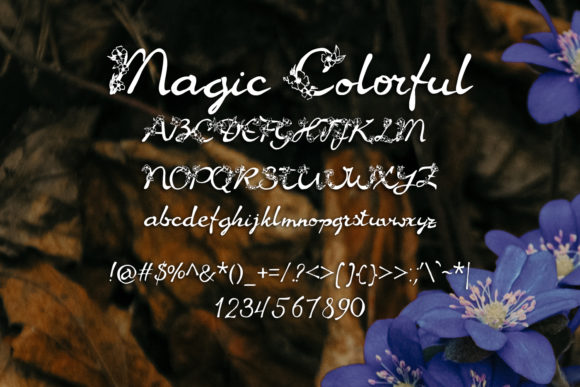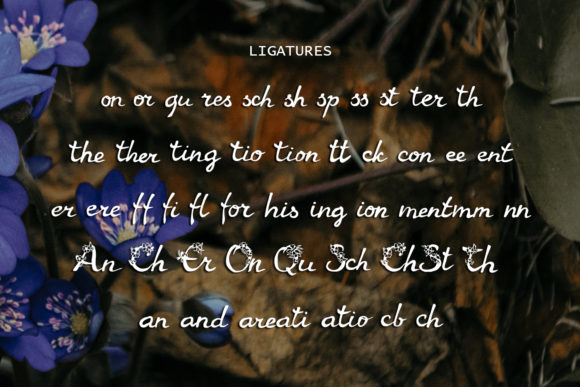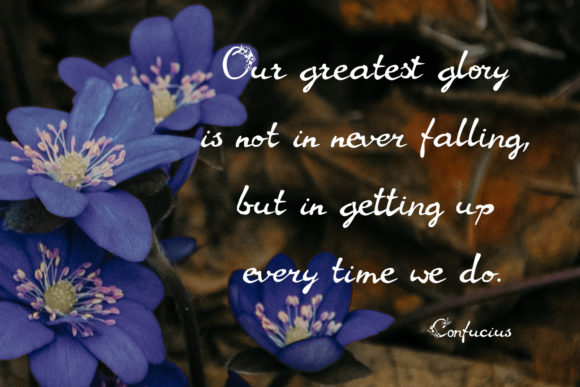
Magic Colorful Font
About Magic Colorful Font
Magic Colorful is a stylish and delicate handwritten font. It has a clean, thin and smooth vibe and it will be a hit for any design that you want to add it to.